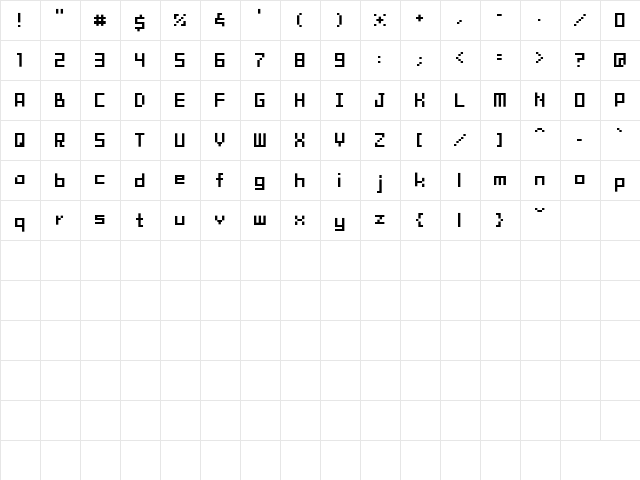
tama mini02 Regular
Design Context for tama mini02 Typeface
tama mini02 takes a measured approach to typography — its balanced proportions and neutral character make it a reliable workhorse for both digital and print work.